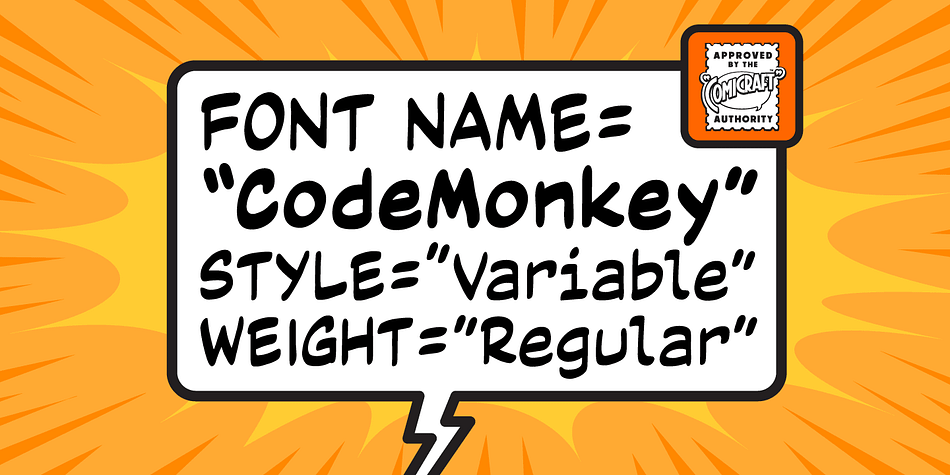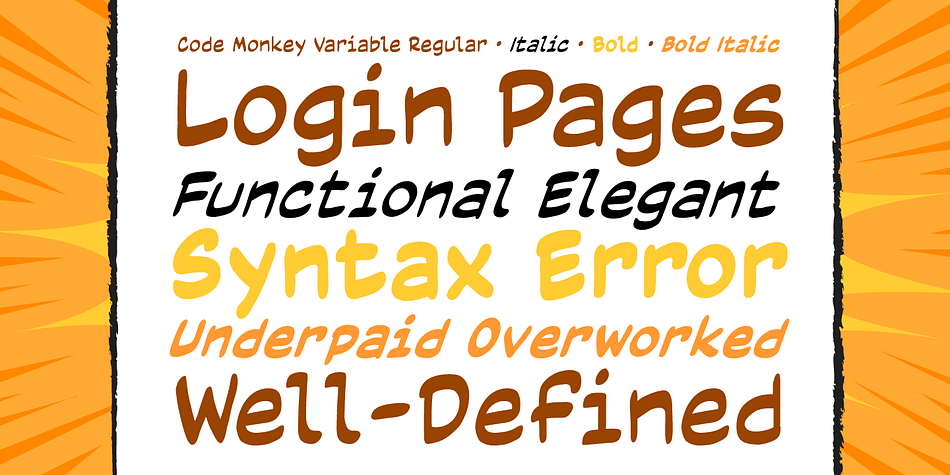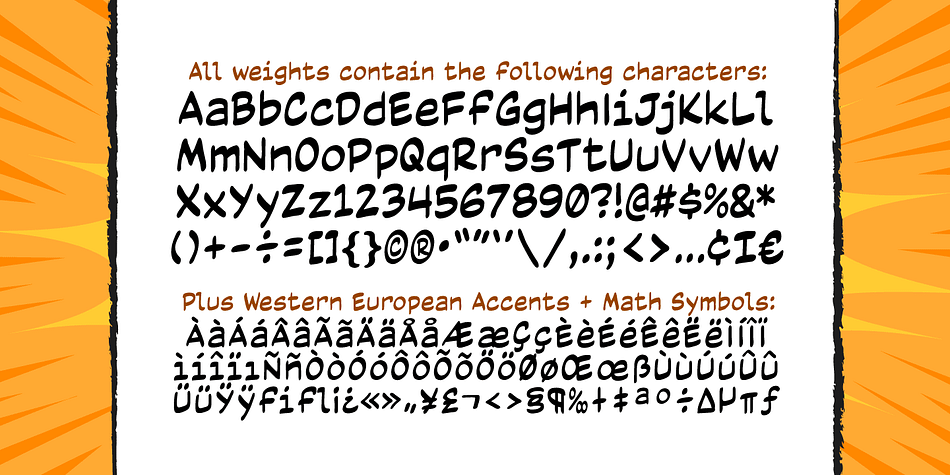
Designed by John Roshell, Code Monkey Variable is a comic and hand drawn font family. This typeface has four styles and was published by Comicraft.
Underpaid? Overworked? If you like Fritos, Jolt and Mountain Dew in your cubicle, your big warm fuzzy Donkey Kong heart is going to like these fonts a lot. Developed in conjunction with actual Code Monkeys*, this user-defined type IS defined—it’s loud and proud, and available in functional monospace for screen or elegant proportional spacing for print.
When your pet project needs a soft, pretty face that’s visible from across the office, sit down and pretend to work with CodeMonkeyVariable. Released from the captivity of monospacing, these lovely letters can convey even your wildest story ideas.